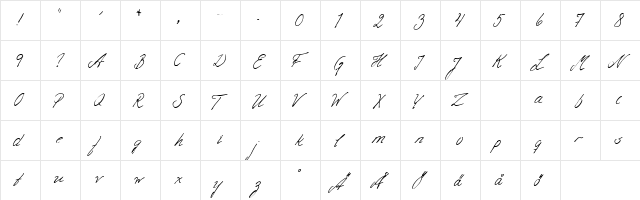
Pia Script Regular
| Foundry | Font Garden |
| Designer | Ellinor Rapp |
Design Context for Pia Script Typeface
Pia Script flows with the natural rhythm of handwritten lettering, making it ideal for designs that call for warmth and personal expression.